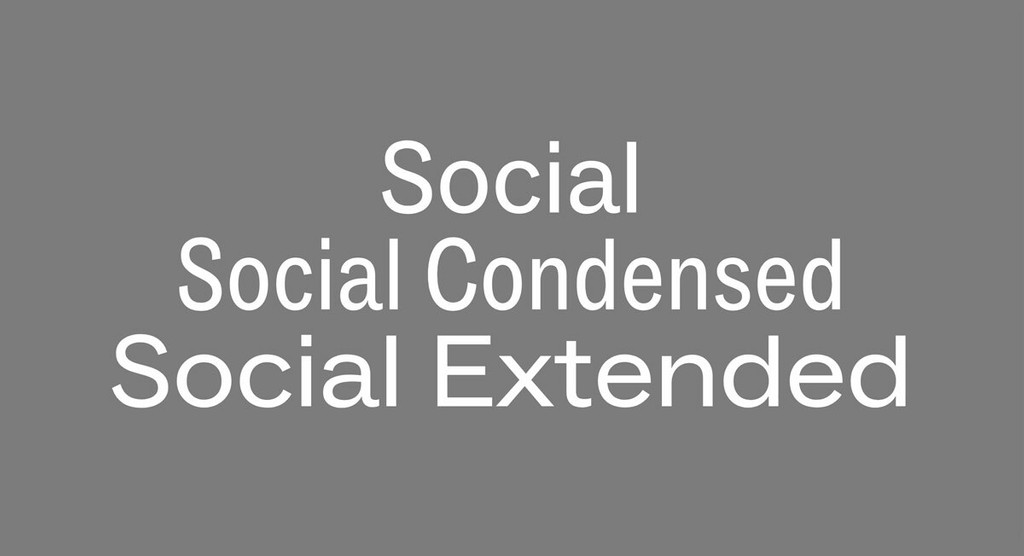
Social is a multi-people, multi-width mega collaboration made by many eyes and many players. As a friendly, smooth grotesque with Variable Font capabilities, it also fills a gap in our library, standing apart from our more constructed sans serifs both visually and technically.
The name “Social” nods both to how the project came about and how designing it felt. If even more humans meet and connect through working with the font—be it spiritually, romantically, or platonically—we’d be more than happy.
ABC Social has a sense of humor, with its freely designed forms and rounded shapes. The dynamic s and double storey a are particularly close to our hearts. And the g may become the most loved or hated character. Social also contains three different forms of punctuation: square, round, and angled.